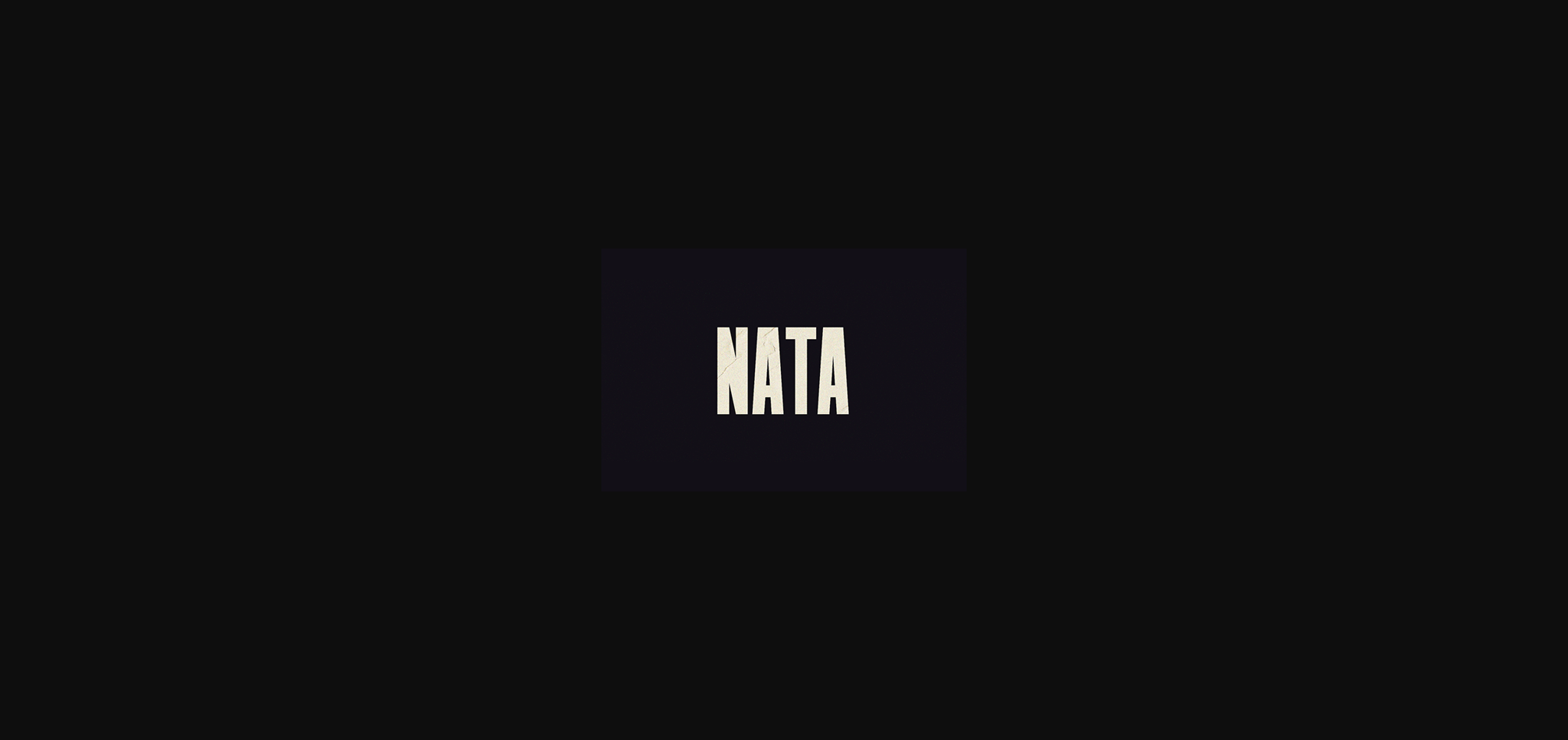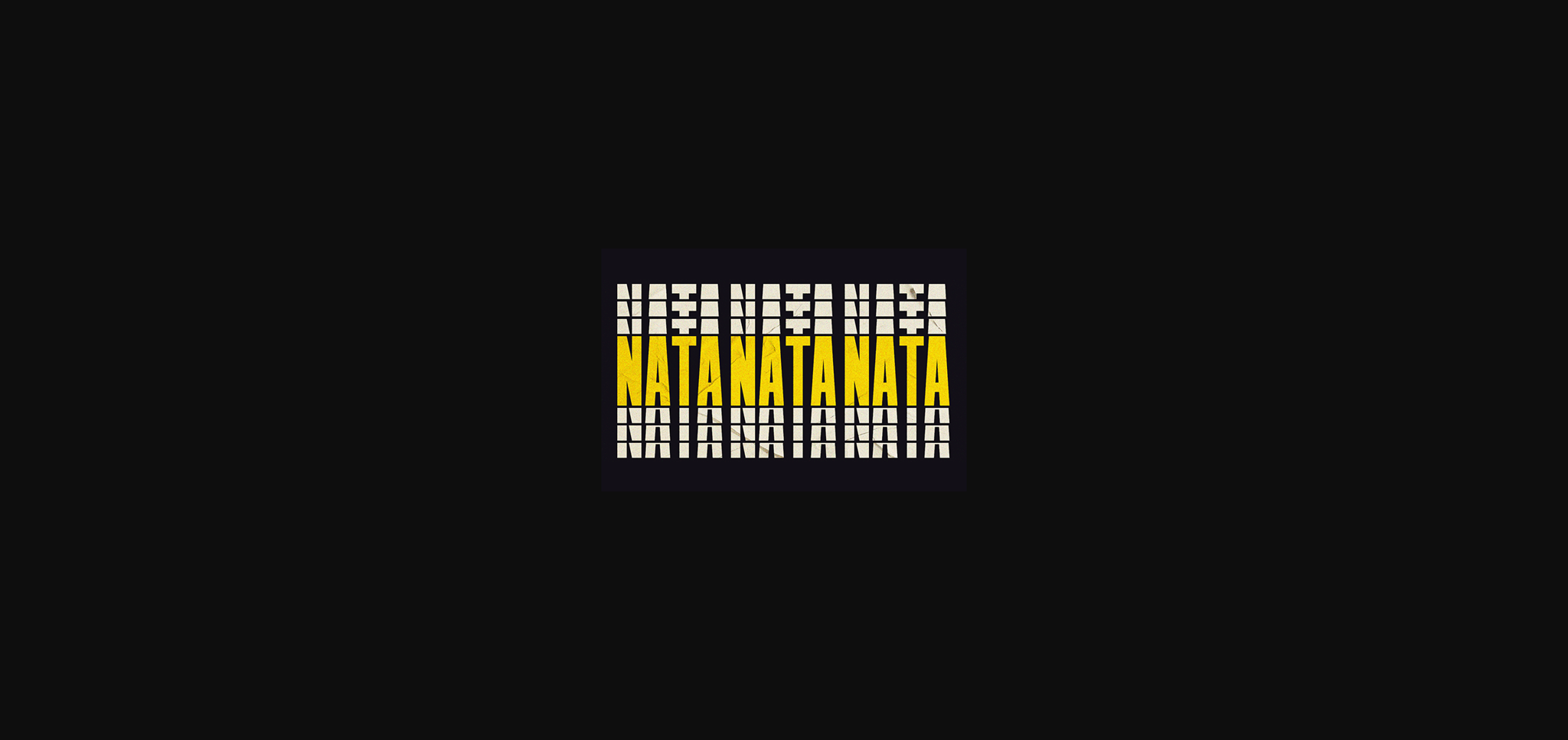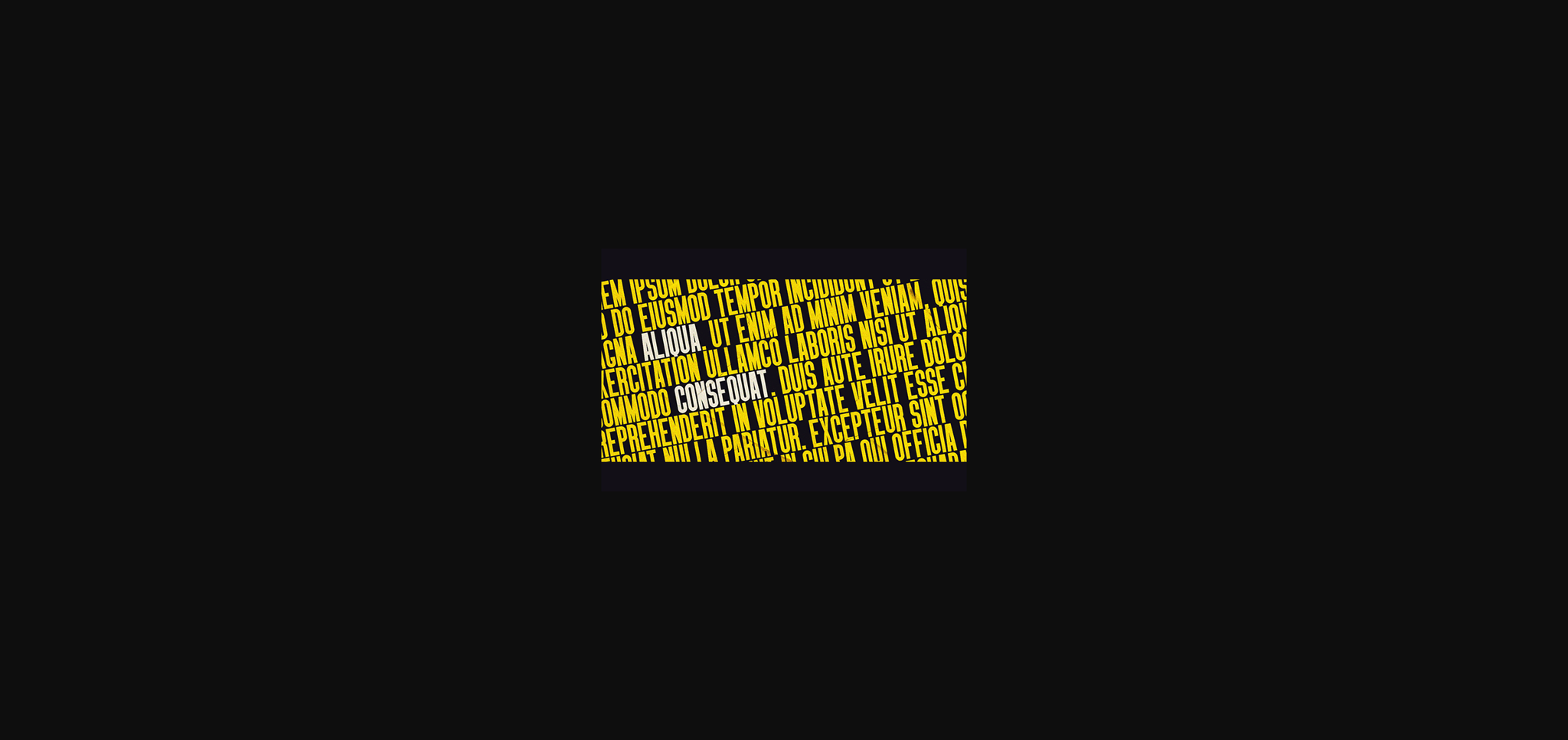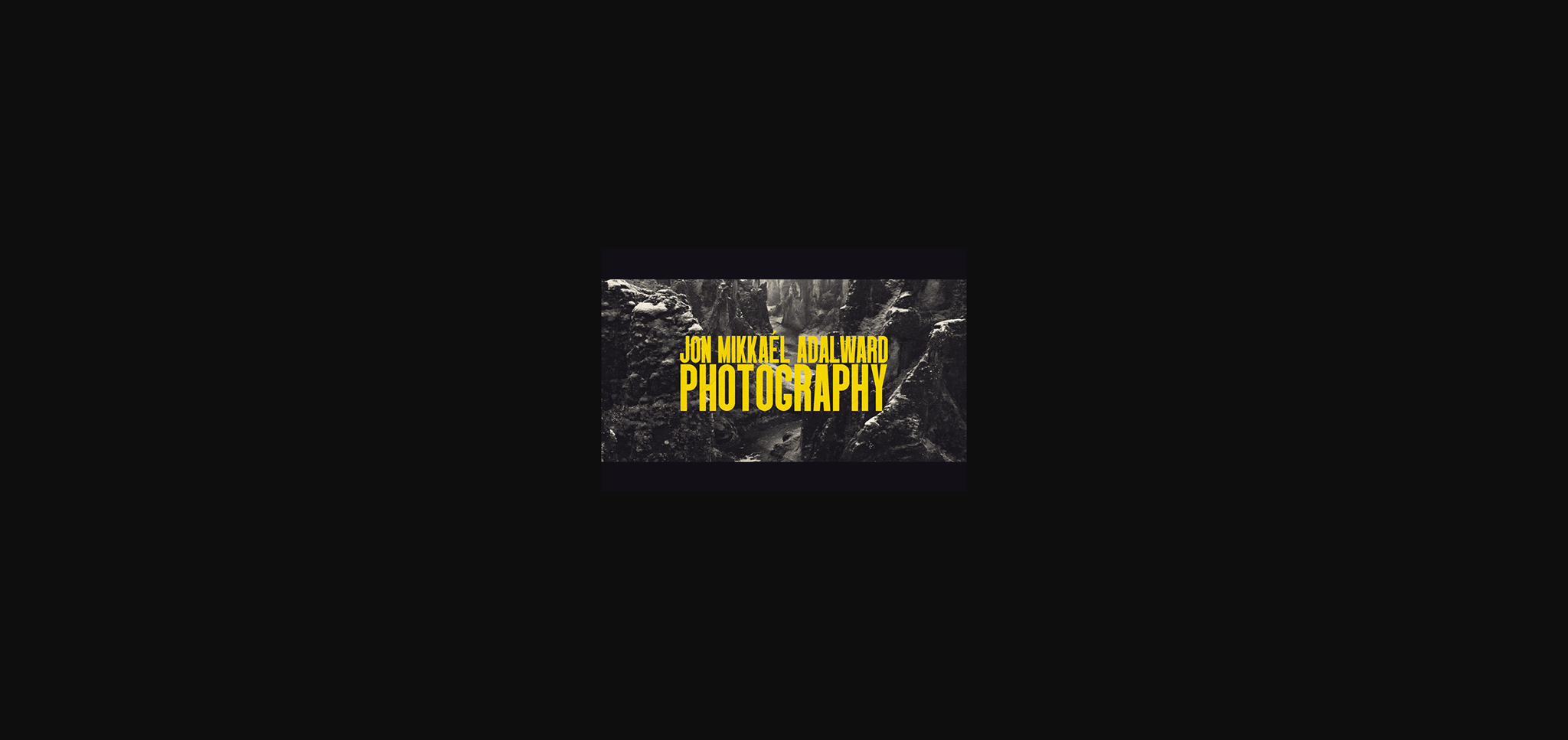
Nata Font
About Nata Font
Nata is a clean and classy sans serif font, carefully handcrafted to become a true favorite. This font will look particularly adept when used in logos, branding, packaging design, and much more.